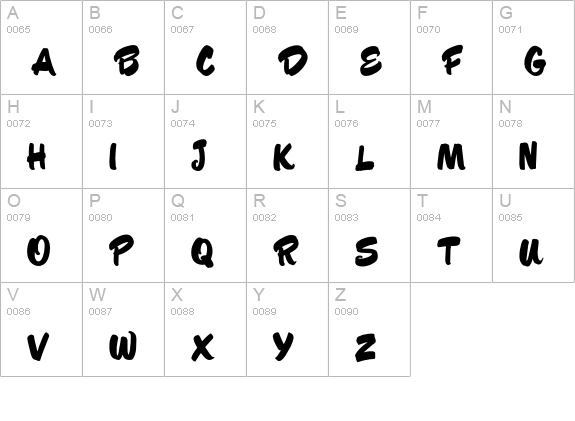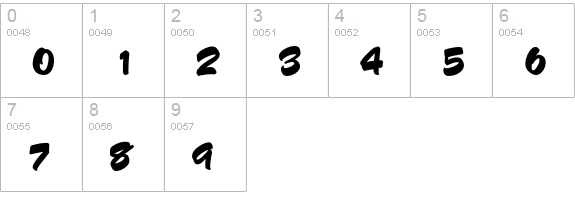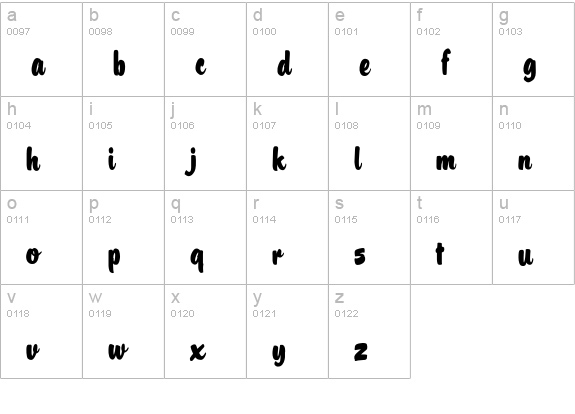
Barsoi Font Details
Barsoi font is a modern and elegant typeface that adds a touch of sophistication to any design project. With its sleek lines and stylish curves, Barsoi font exudes a sense of contemporary flair while maintaining a timeless appeal. This versatile font is perfect for a wide range of design applications, from branding and advertising to invitations and packaging. The best part? Barsoi font is available for free download at FontsMarket.com. Whether you're a professional designer looking to enhance your portfolio or a hobbyist seeking to elevate your creative projects, Barsoi font is the perfect choice. Don't miss out on this opportunity to add a touch of class to your designs with the stunning Barsoi font – download it for free today!